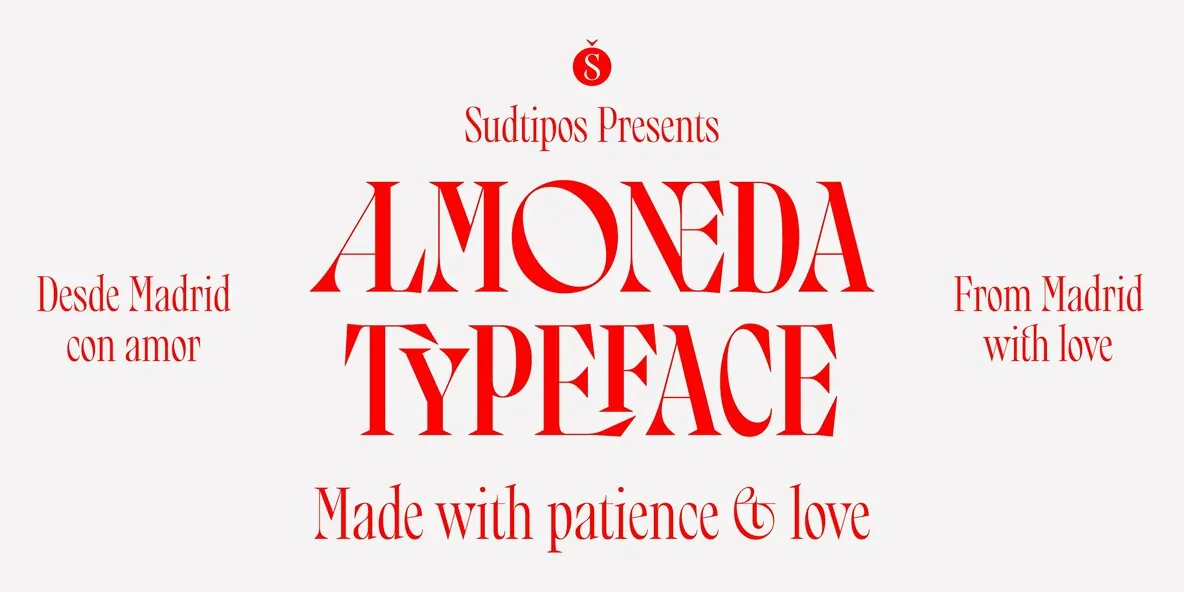
Almoneda Font
Almoneda — Rastro Letters, Recast
Almoneda takes its name from the Spanish word for the public auction of movable goods, generally used. It also refers to the private and voluntary sale of jewelry and junk, done without the intervention of justice. Historically, it meant the market or sale of objects and spoils won from the enemy in war.
Today, “almoneda” is closely tied to places where “old things” are sold. In Madrid, these finds often cluster around El Rastro, the open-air market held on Sundays and some holidays in the city center. If you walk long enough and look closely, you can uncover remarkable typographic details. This typeface grew from late nineteenth- and early twentieth-century sources—boxes, posters, books—showing uppercase letters in many shapes, embedded letters, and rare ligatures. Elements taken from street signs, bar tiles, and commemorative pieces from Madrid helped complete the design, made with care and patience.
Almoneda is a modern typeface with a pronounced axis and strong contrast. Its uppercase includes several character sets to mix, match, and enjoy. It also includes a large number of ligatures and discretionary ligatures. Almoneda is a typeface that will not leave you indifferent.